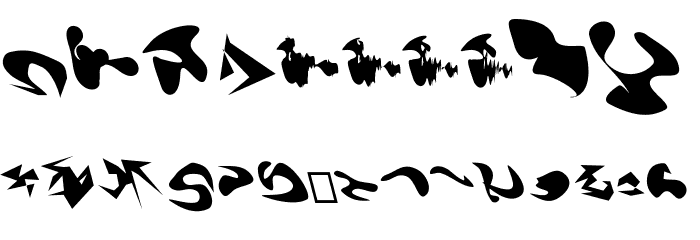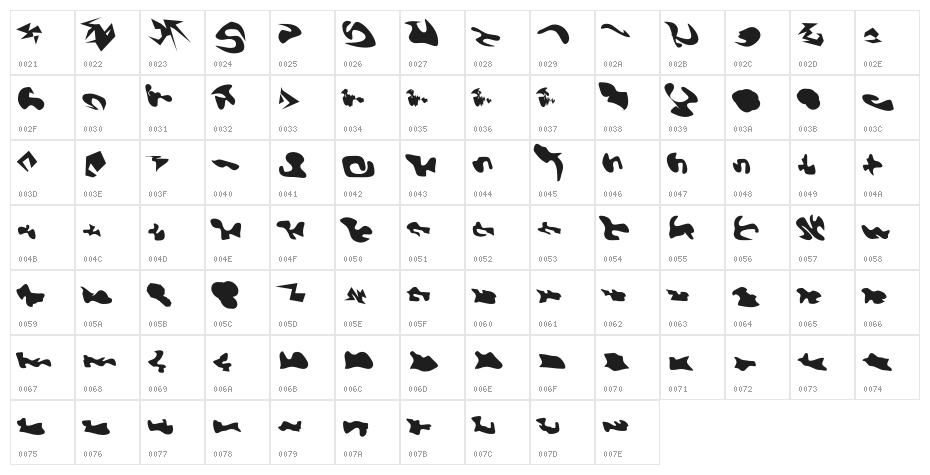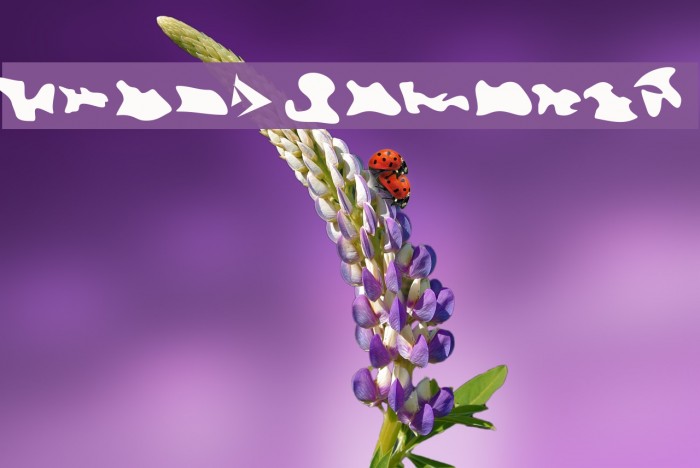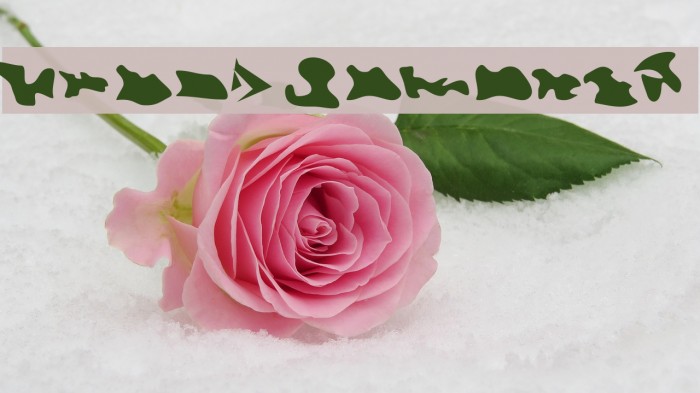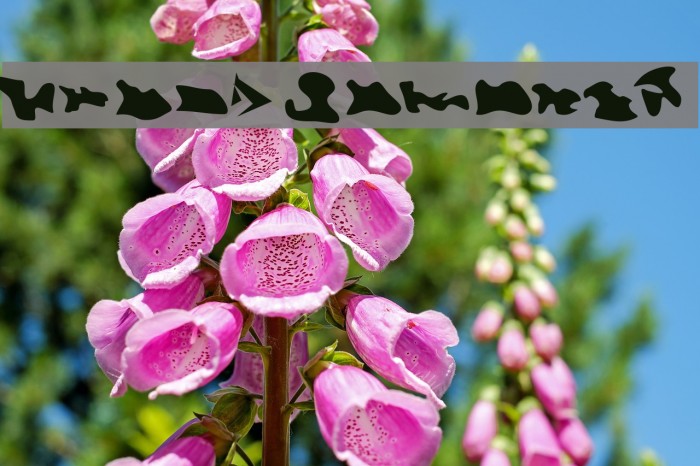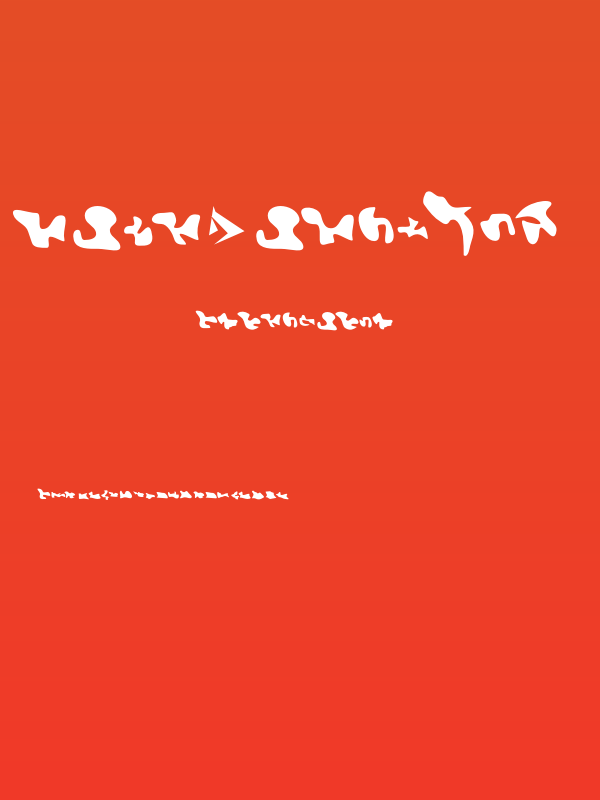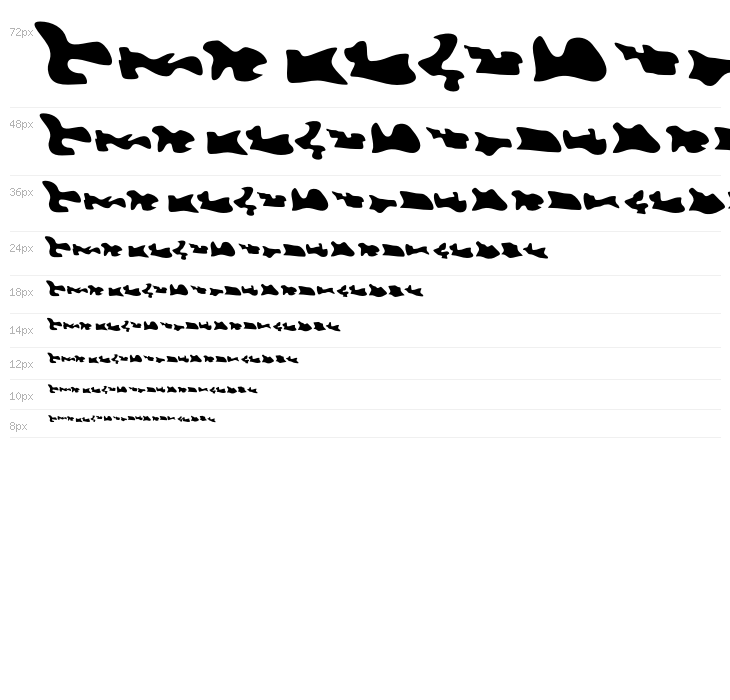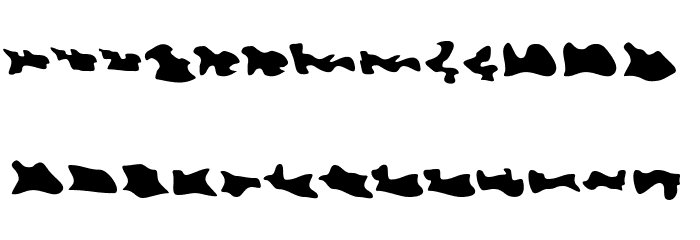
Camo3 Angled2 Font
Camo3 Angled2 Description
This font features a highly abstract and artistic design, with each character appearing as a unique, organic shape. The letters are bold and irregular, resembling abstract art or camouflage patterns. The strokes are thick and vary in width, creating a dynamic and fluid appearance. The characters have a playful and unconventional style, making them stand out as a decorative element. This font is not suitable for body text due to its complexity and lack of readability but can be used effectively in creative and artistic projects where a bold statement is needed.
| Use Case | Logos, Posters, Album covers |
| Proposed Projects | Ideal for artistic projects, posters, album covers, or any design requiring a bold, abstract statement. |